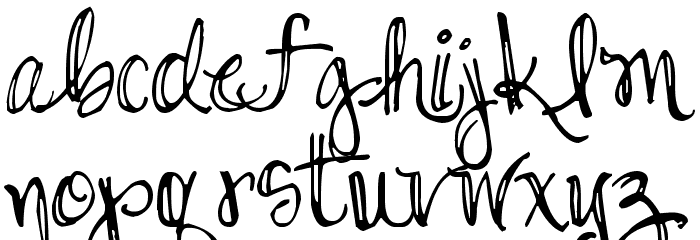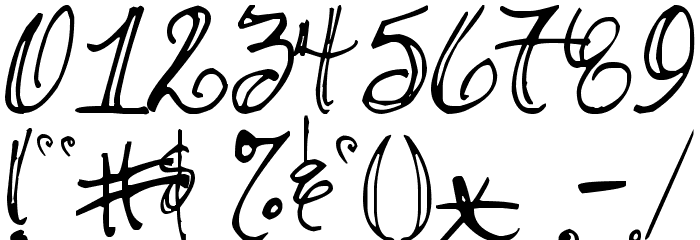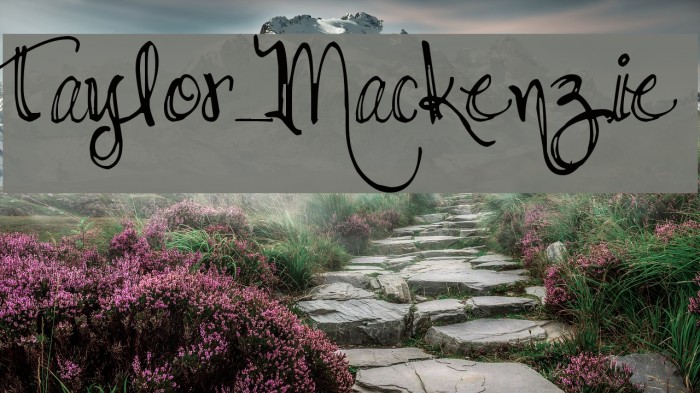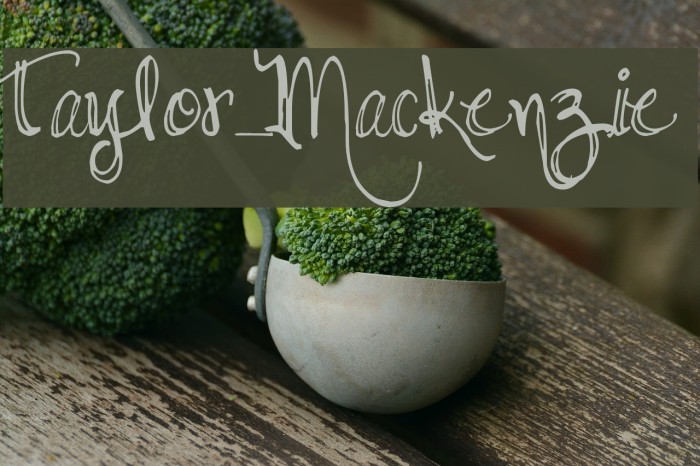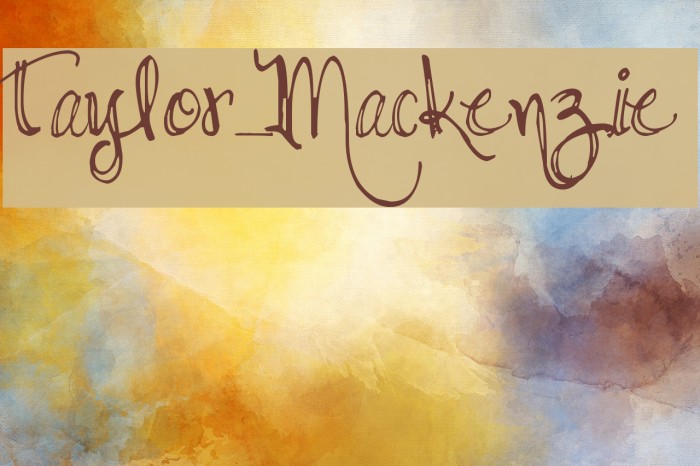
Taylor_Mackenzie Font
This font features an expressive and dynamic handwritten style, characterized by its fluid and flowing letterforms. The uppercase letters are bold and elaborate, with dramatic loops and swirls that give a sense of movement and energy. The lowercase letters maintain a consistent style, with a playful and artistic flair that enhances the overall aesthetic. Numbers and special characters are equally stylized, contributing to the font's cohesive appearance. The strokes vary in thickness, providing a medium contrast that adds depth and interest. This font is ideal for creative projects that require a personal touch.
A dynamic and expressive handwritten font with fluid, artistic letterforms.
- Proposed Projects: Ideal for invitations, greeting cards, artistic posters, and branding materials that require a personal and creative touch.
- Use Case: Logos, Headlines, Artistic projects